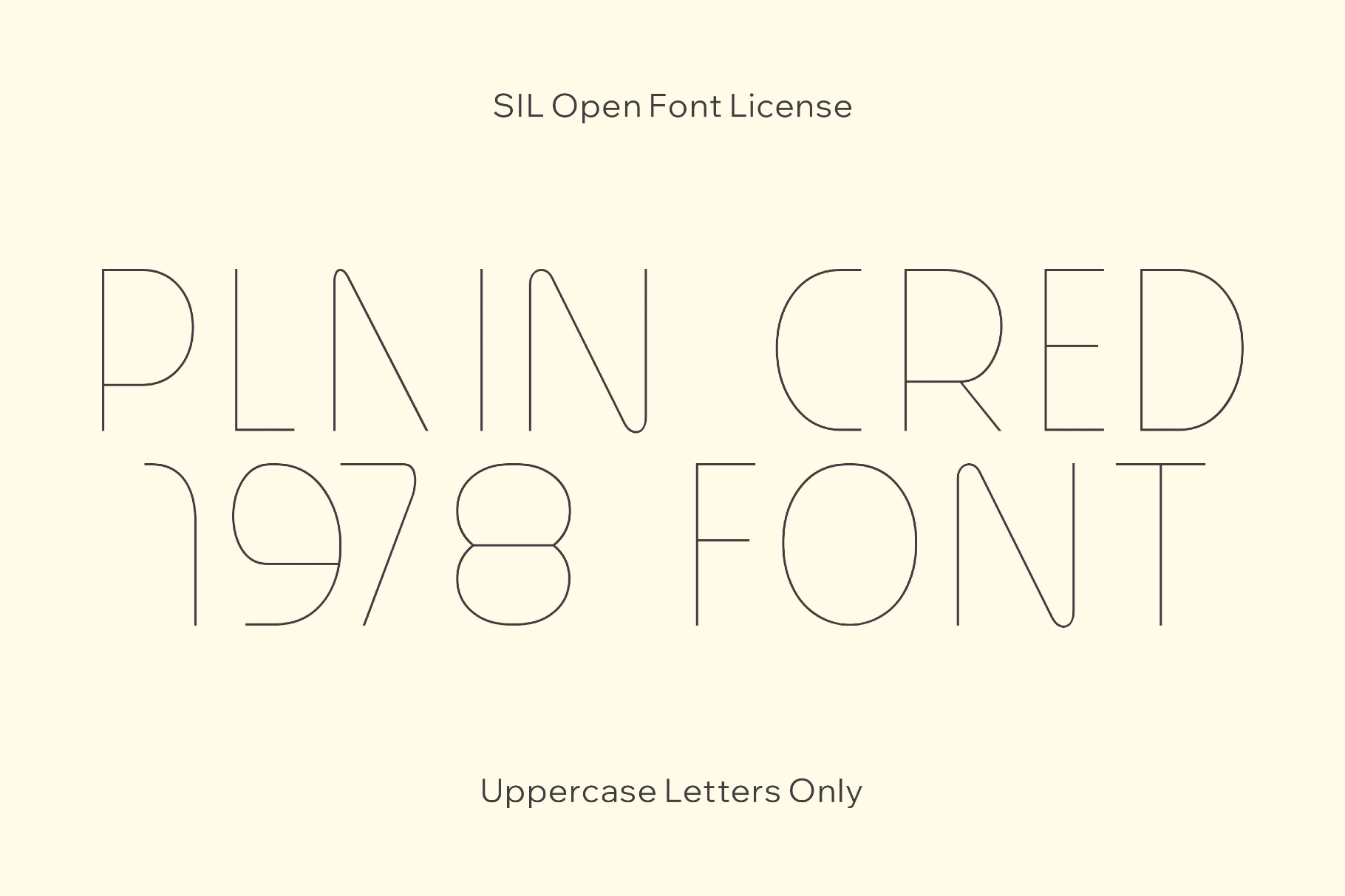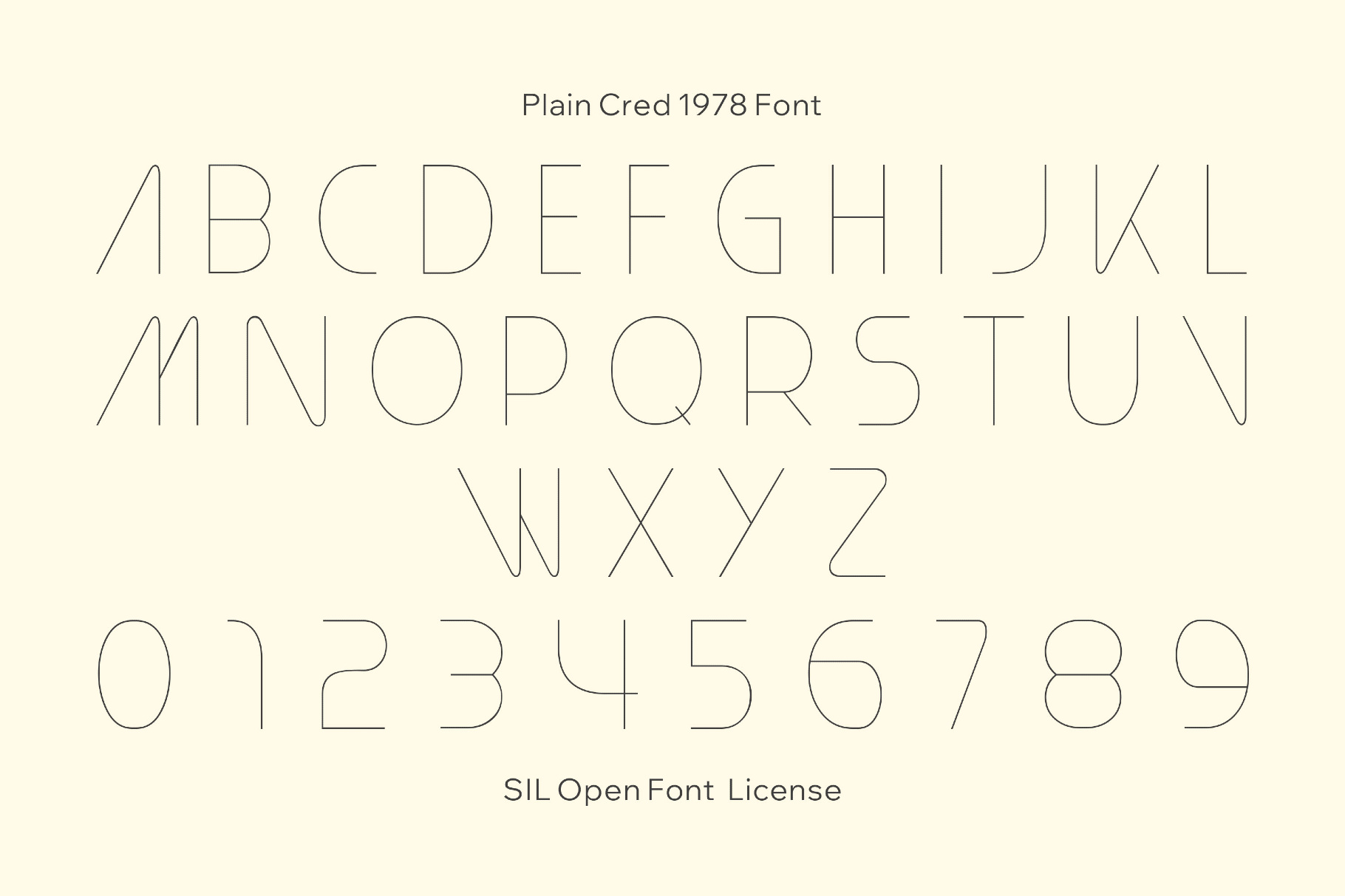
Plain Cred 1978 Font
Plain Cred 1978
Plain Cred 1978 recalls the fine-line optimism of late-1970s space graphics and electronic magazines, with monoline geometry and airy spacing. The font sits easily in both experimental layouts and more restrained branding work, like in visual identities, poster headlines, editorial spreads, album sleeves, packaging, fashion editorials, logos, presentation graphics, title cards, and interface concepts.